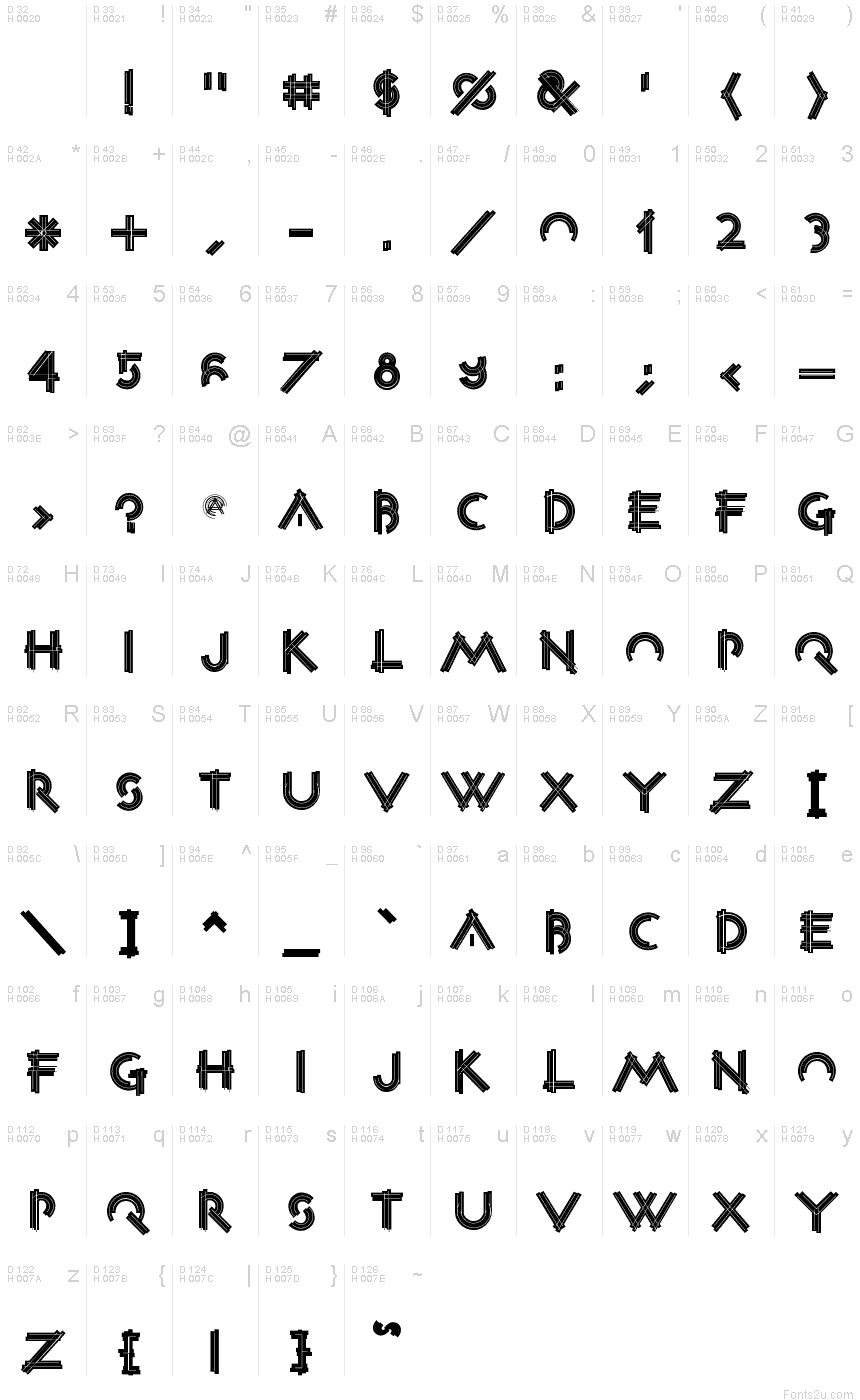
ConstrxiaBlackInline
Constrxia Black Inline font by M. Klein is a free decorative inline typeface with a sharp, engineered attitude. Thick outer strokes and tight inner lines give it the look of cut metal or glowing tubing, while the pointed angles keep every word crisp, tense, and futuristic.
Using Constrxia Black Inline shines on album covers, tech posters, esports branding, game titles, event flyers, packaging, and YouTube thumbnails where a plain headline would disappear. Keep it big so the inline detail stays clear, and pair this free font with a clean sans like Inter for body text.